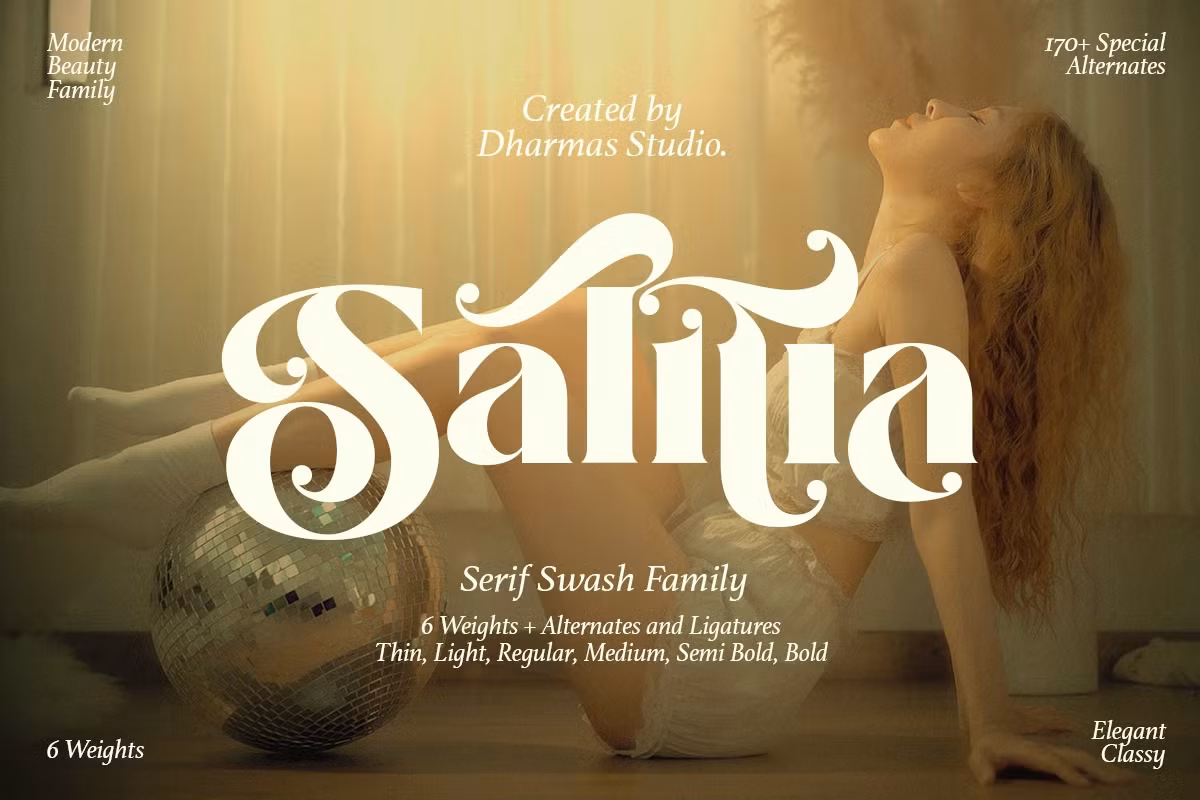
The family includes a variety of weights and styles, providing you with the flexibility to experiment with different looks. The swashes add an extra level of artistic detail, making it ideal for projects that need a touch of sophistication. This font family includes uppercase and lowercase letters, numerals, punctuation, and multilingual support, ensuring it's suitable for a wide range of design applications.
Whether you’re working on high-end branding, custom invitations, or creating elegant promotional materials, Salitia brings refinement and style to your typography.